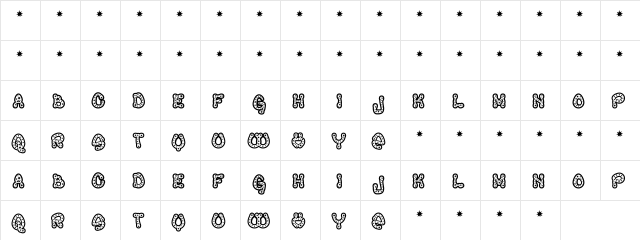
RaveQueen Regular
Design Context for RaveQueen Typeface
RaveQueen is a composed and adaptable typeface that performs quietly and consistently across a wide range of design contexts.